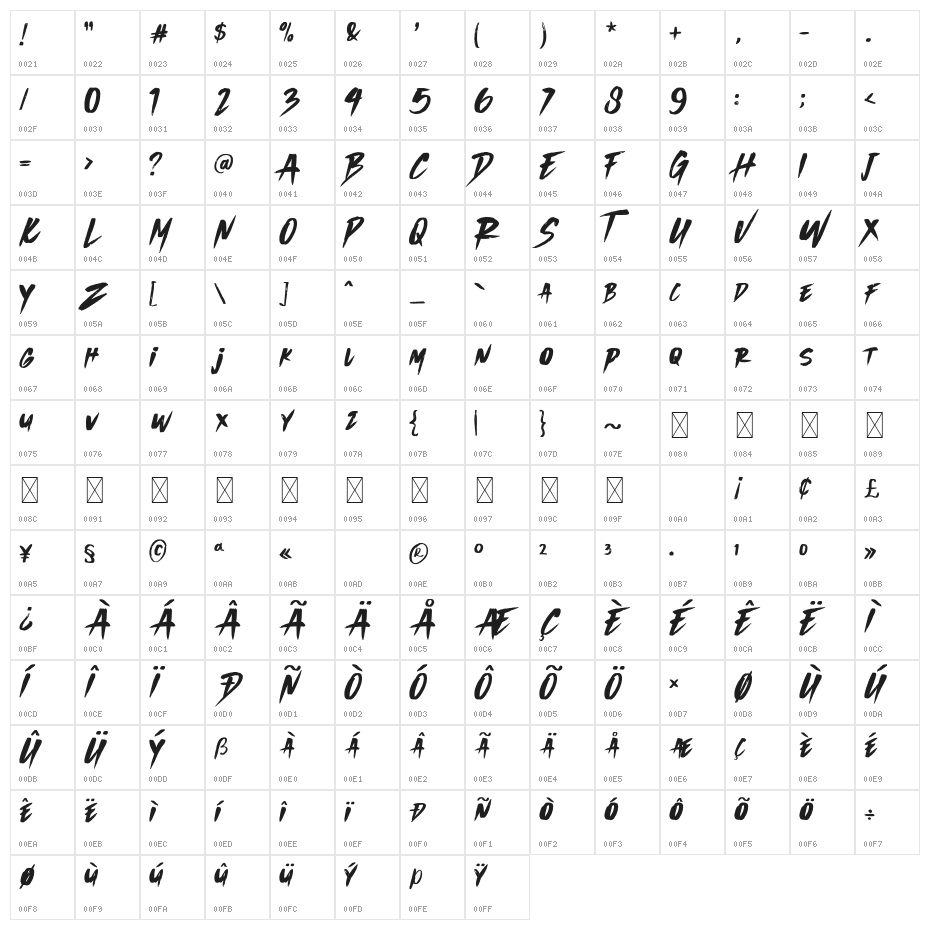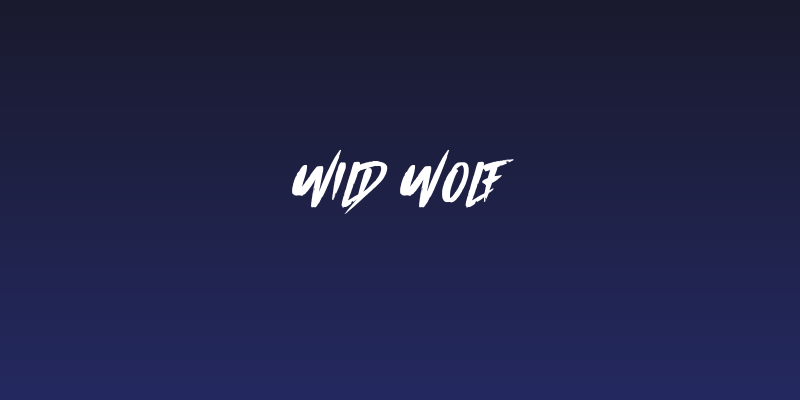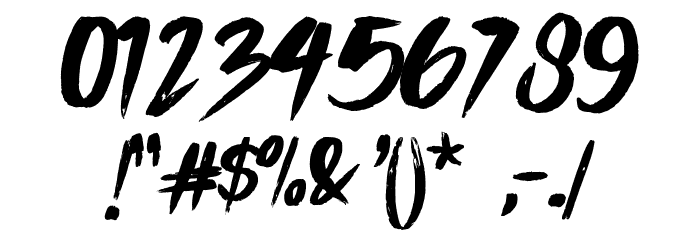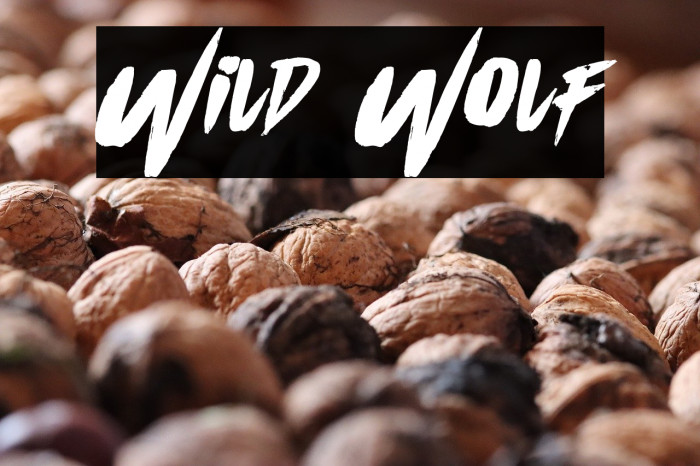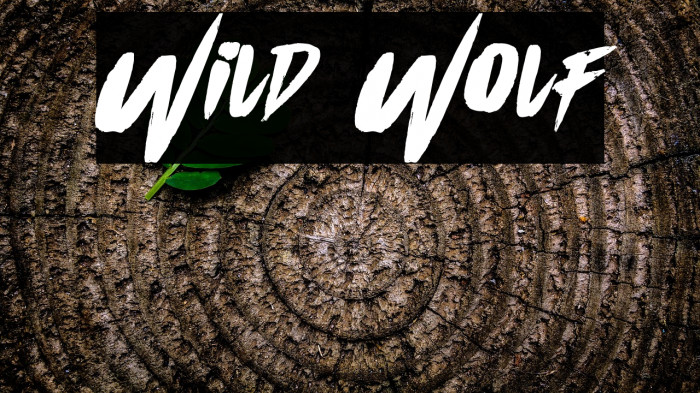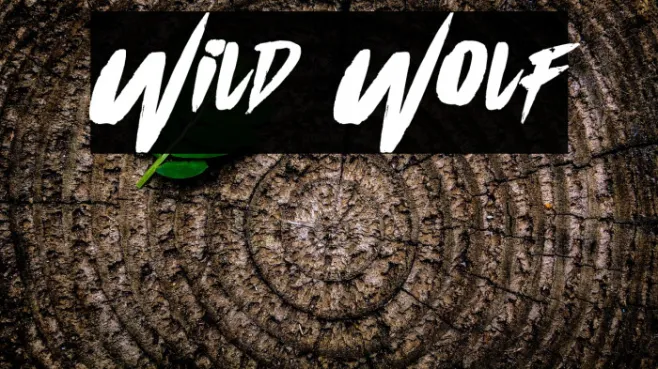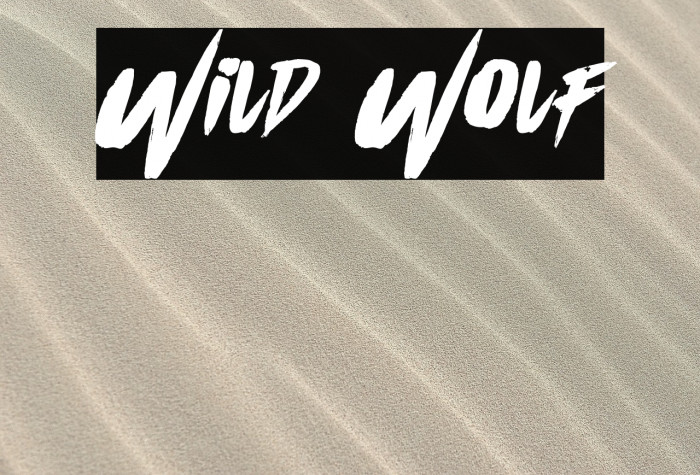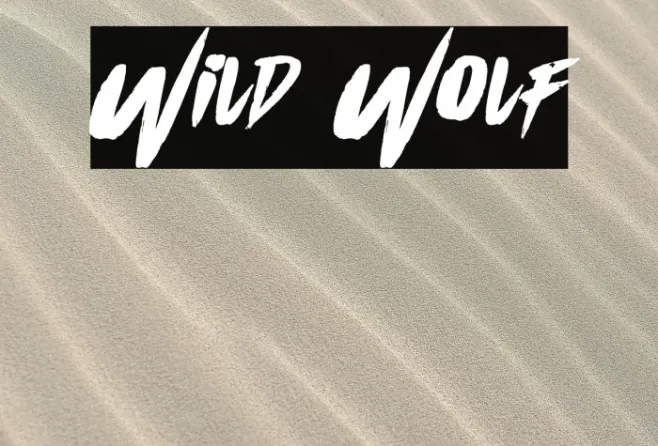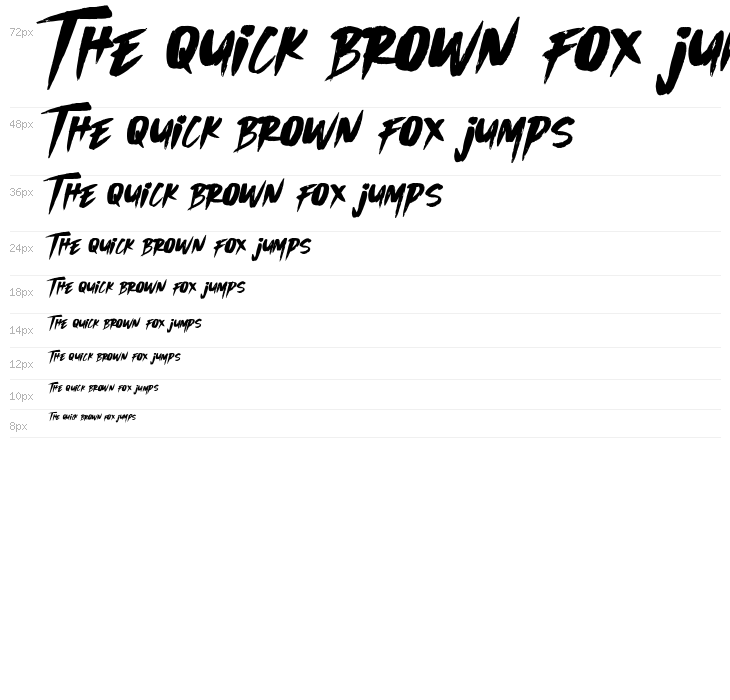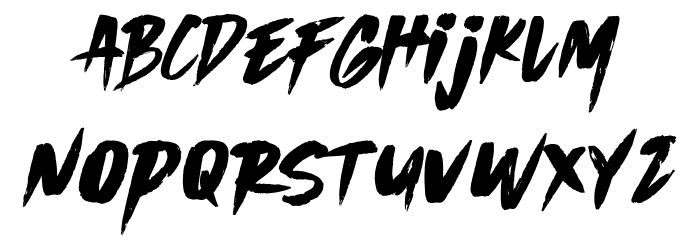
Wild Wolf Font
Wild Wolf Description
This font exudes a raw, energetic vibe with its bold, brush-like strokes that convey a sense of movement and intensity. The characters are designed with a dynamic flair, featuring sharp angles and varying thickness that mimic the look of hand-painted lettering. The uppercase letters are particularly striking, with an aggressive slant and exaggerated forms that demand attention. Lowercase letters maintain the same energetic style, offering a cohesive look across different text cases. Numbers and special characters are equally bold and expressive, making them suitable for impactful designs. The overall appearance is both modern and edgy, perfect for projects that require a strong visual statement.